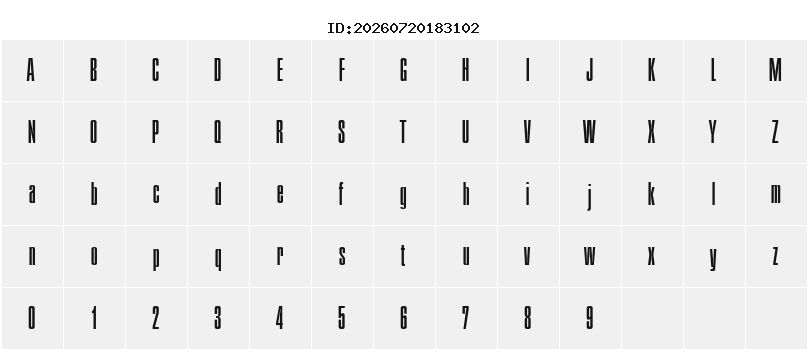
• Font Name: FrankBecker-Light
• Full Font Name: FrankBecker-Light
• PostScript Name: FrankBecker-Light
About FrankBecker-Light.ttf
FrankBecker-Light.ttf is a modern, elegant sans-serif font designed for ultimate readability and visual harmony. Perfect for branding, headlines, web design, and print materials.